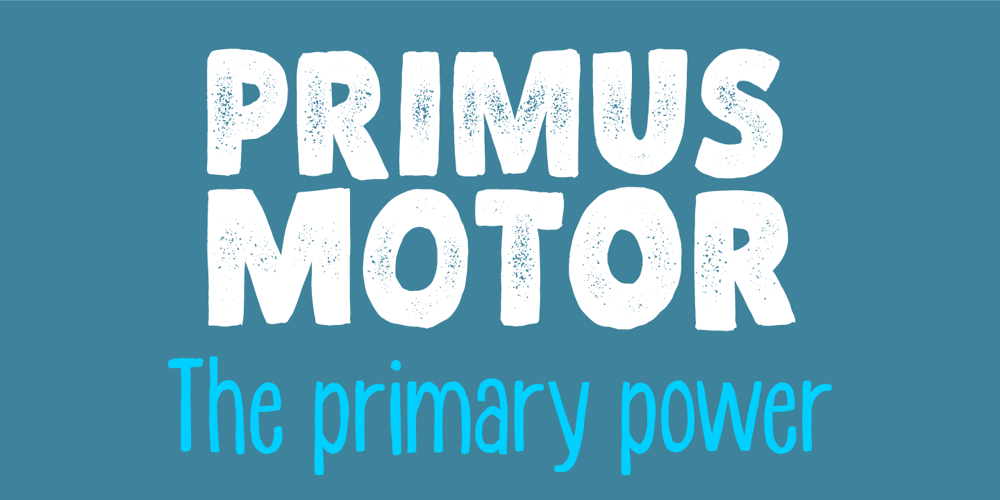
Primus Motor
Primus Motor font
Primus Motor Font Family was designed by published by Bogstav. Primus Motor contains 4 styles and family package options. Primus Motor is about being the one who makes sure that the job is done!